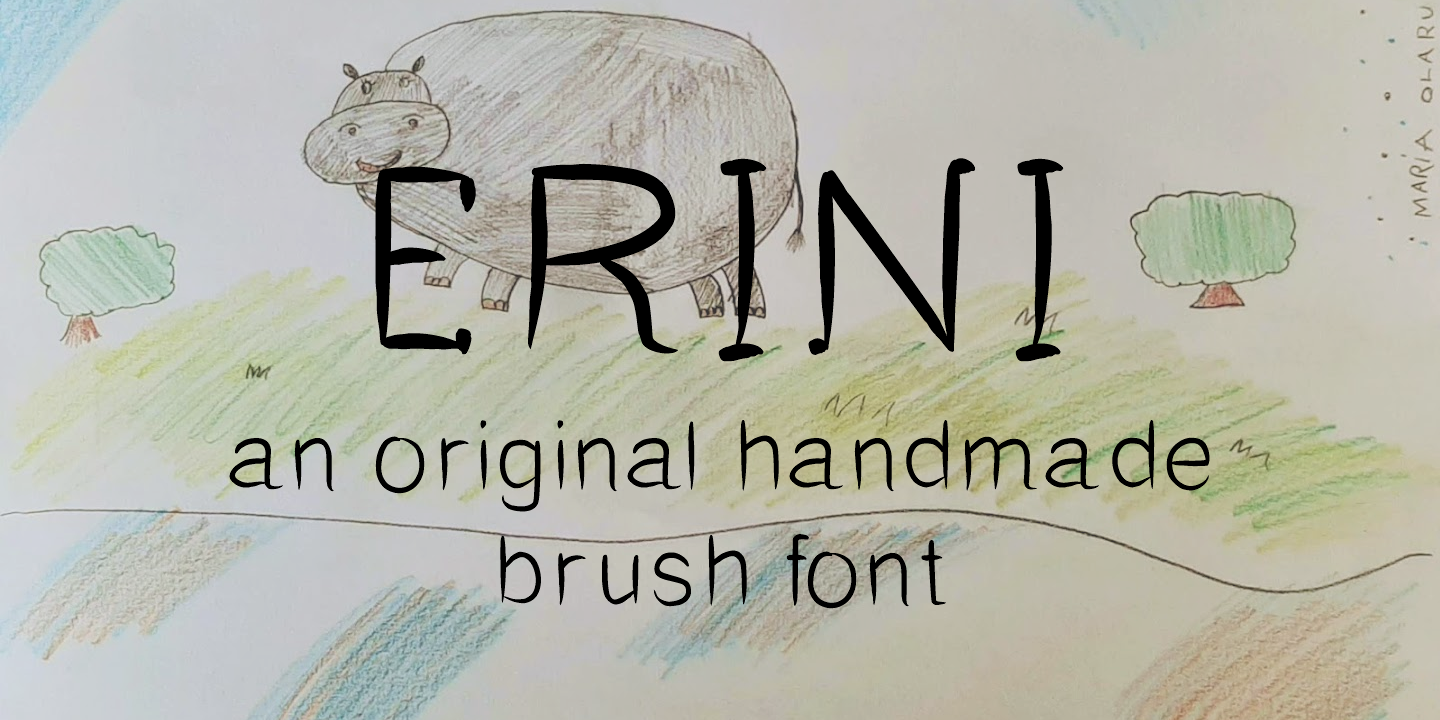
Erini, an original brush font
Erini is an original hadmade scripted brush font. Featuring two styles and inspired by childish games and cartoons, Erini can help you design kids friendly posters and other materials.
Glyphs: Over 230 - Basic Latin, Diacritics, Alternates, Currency